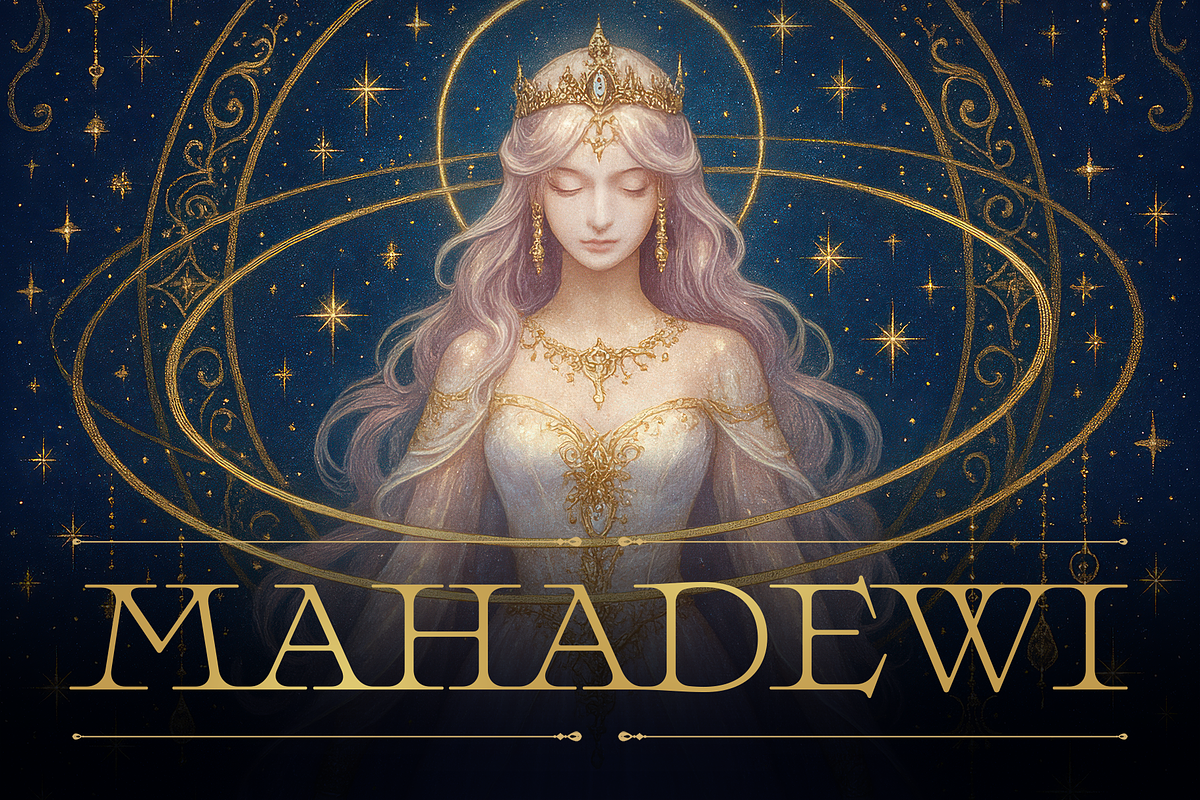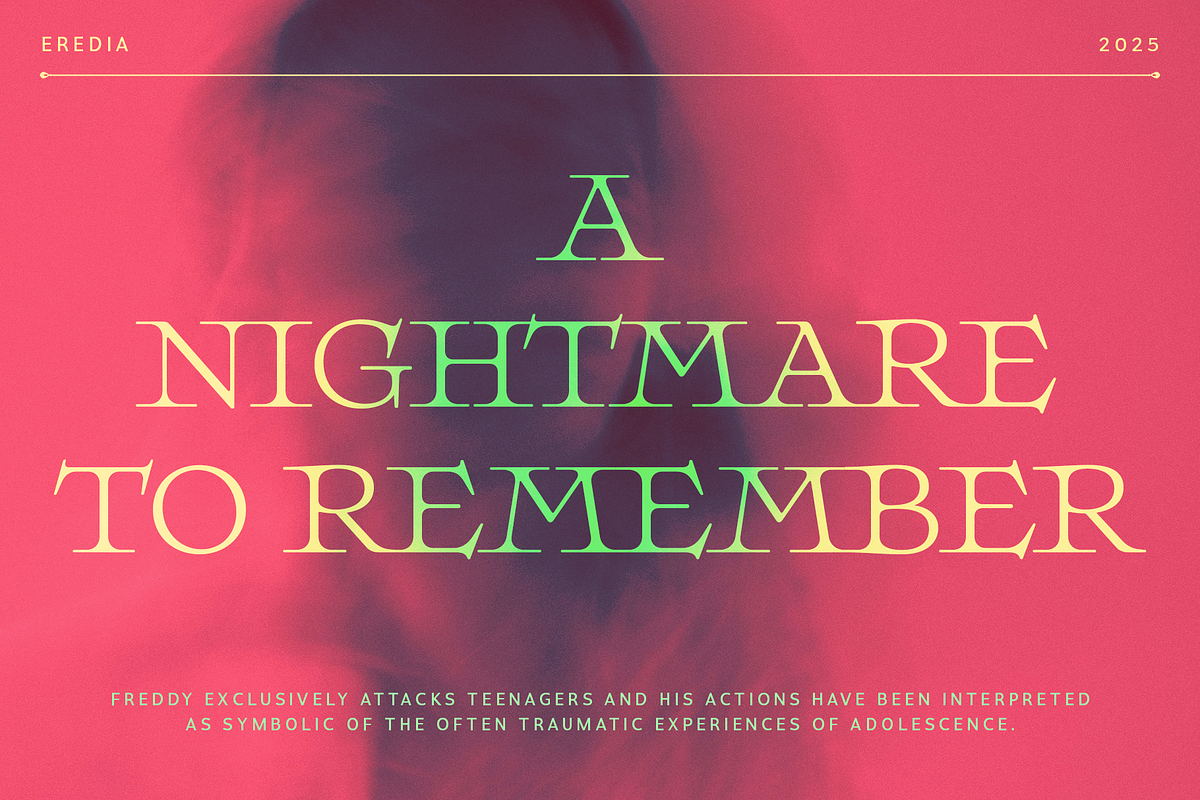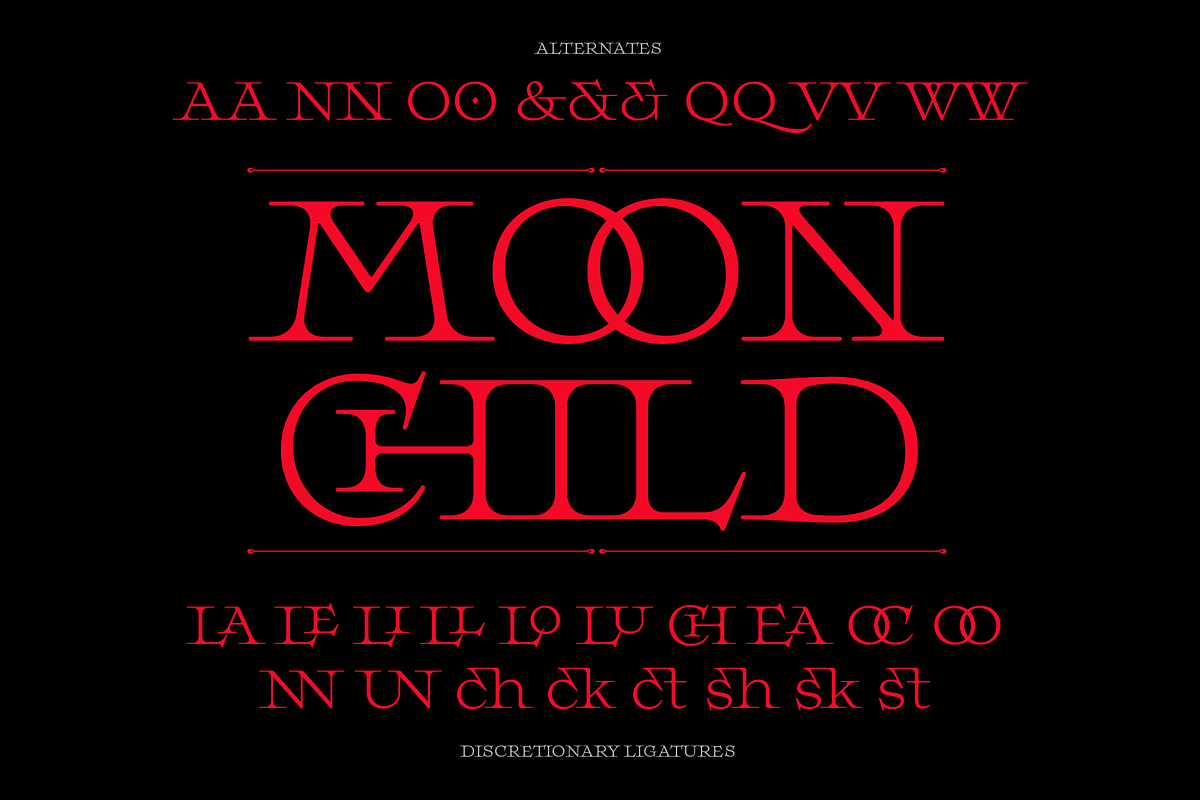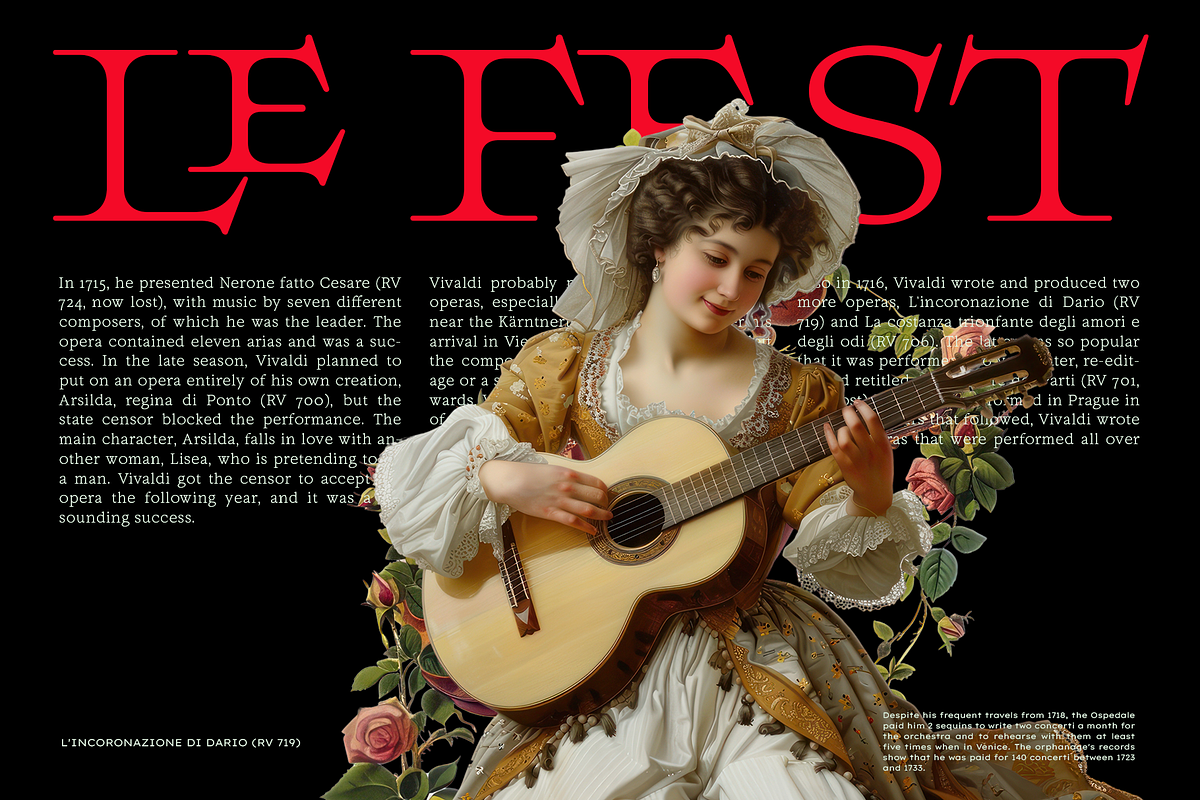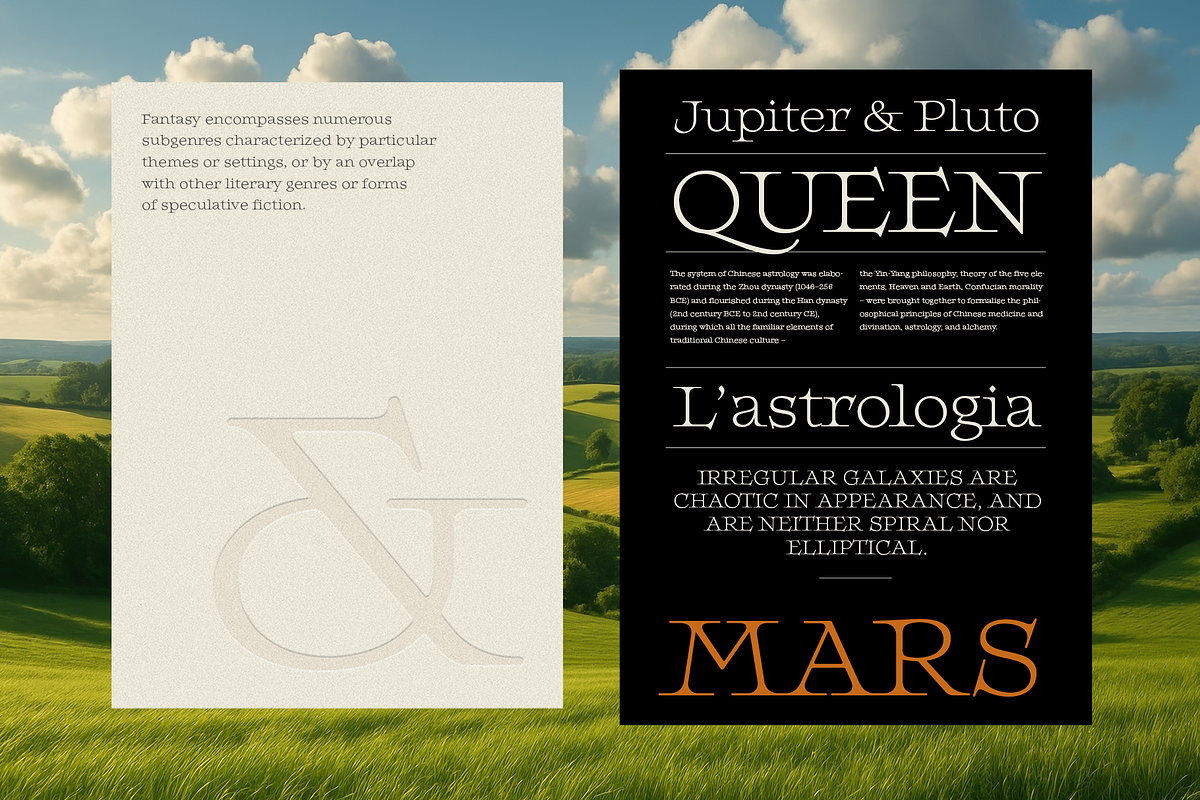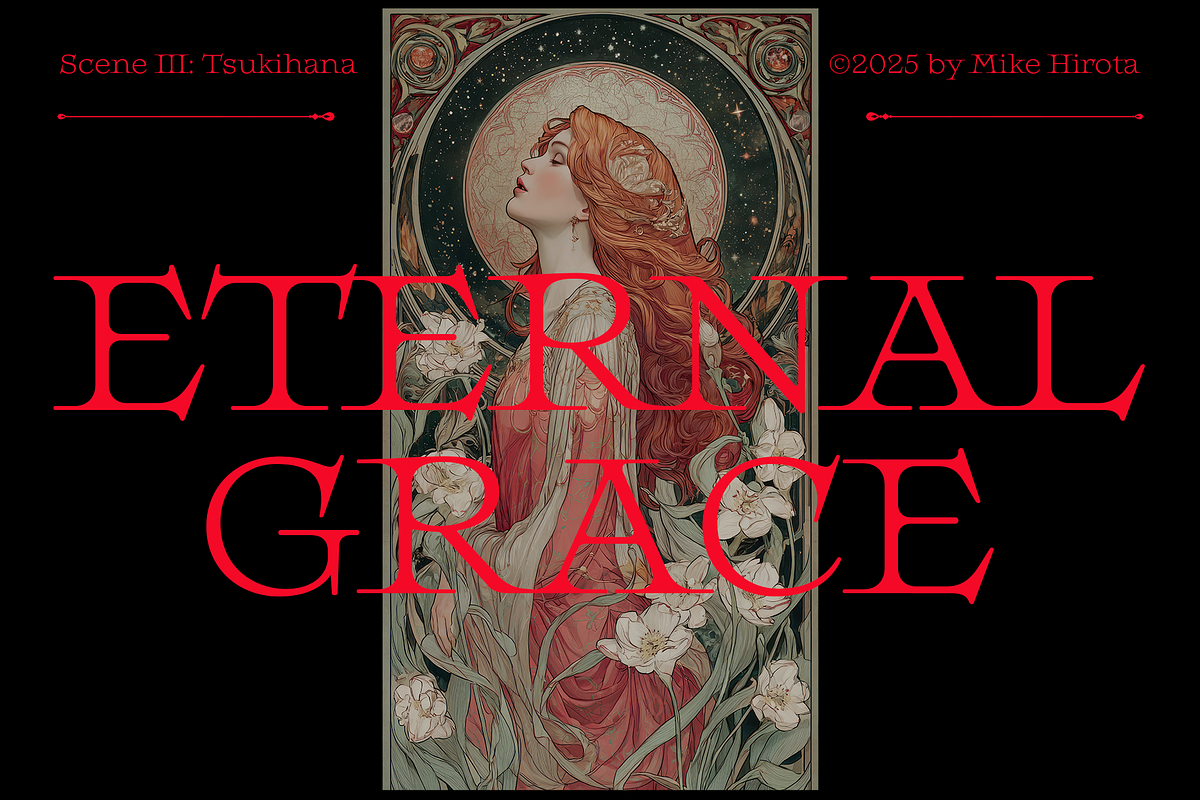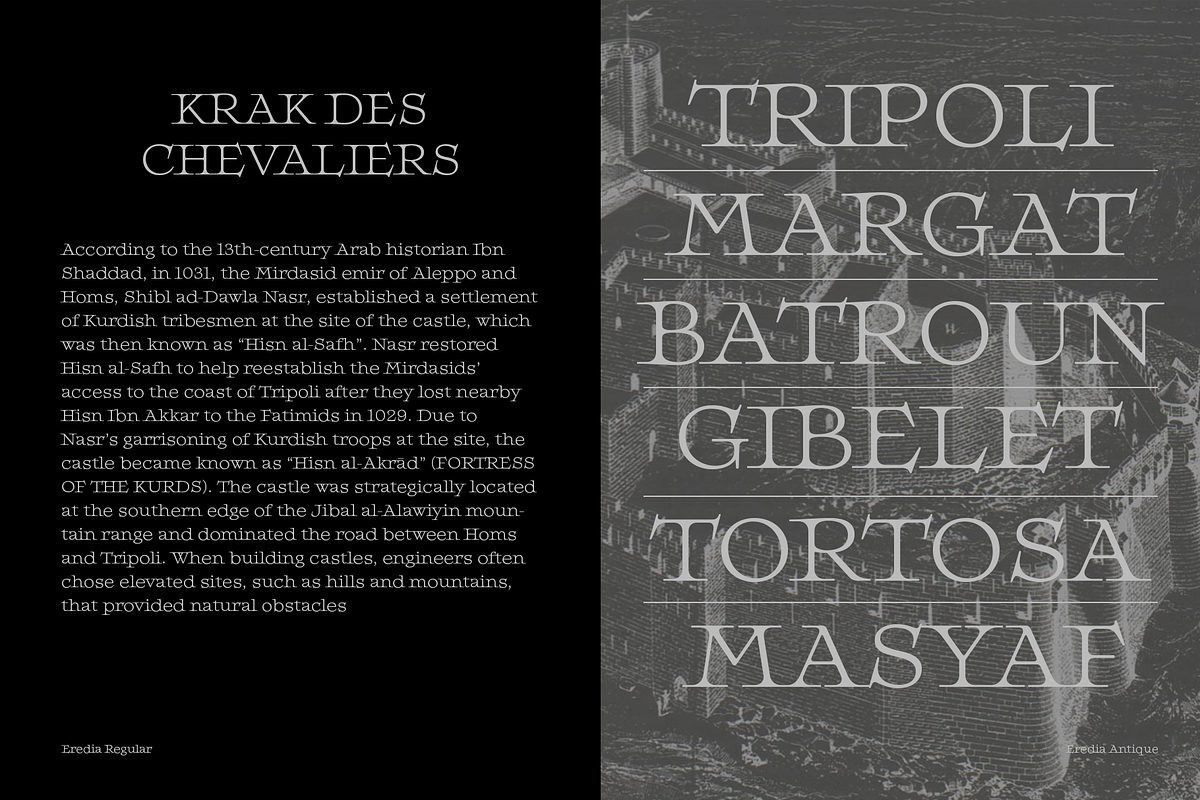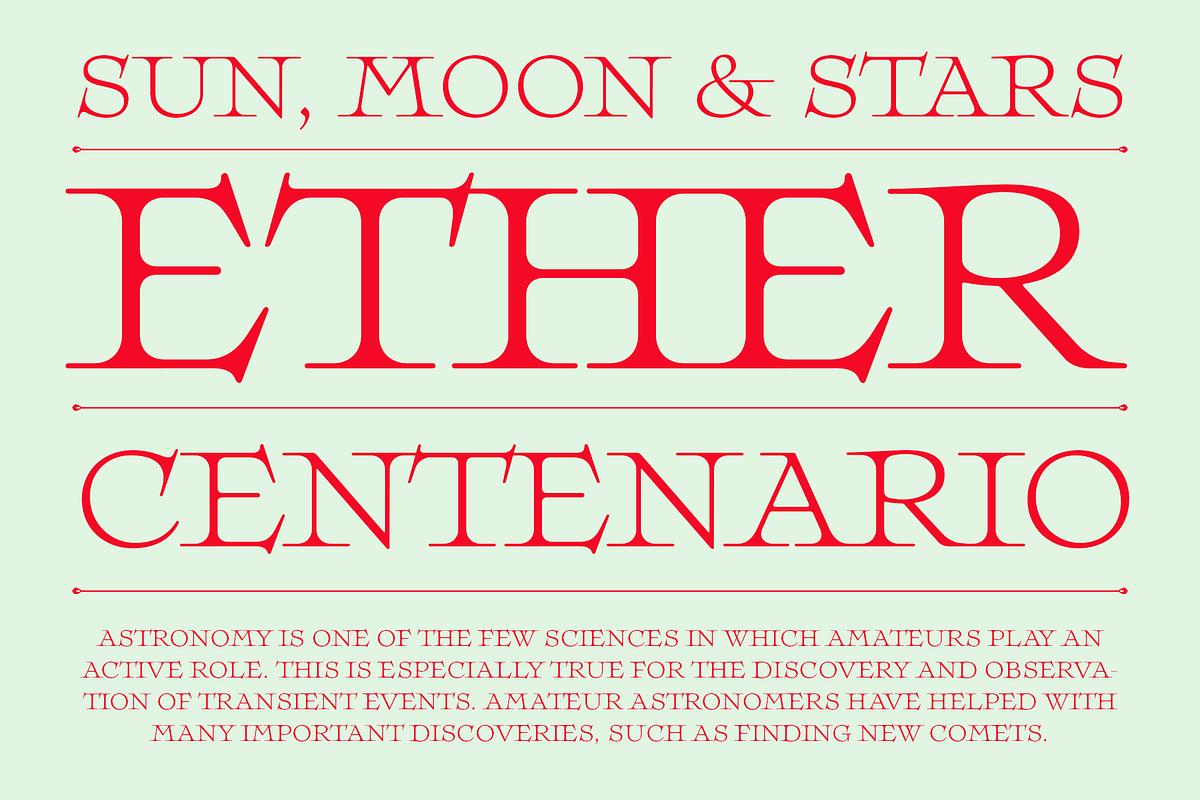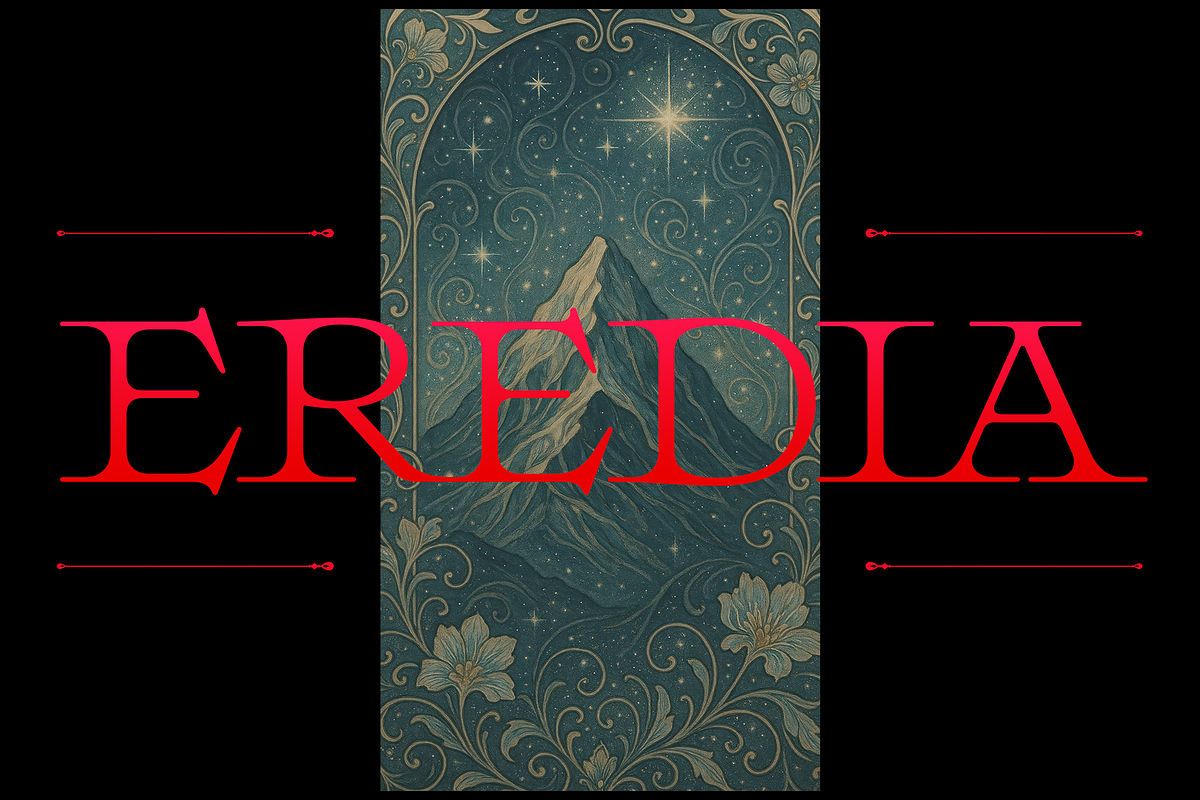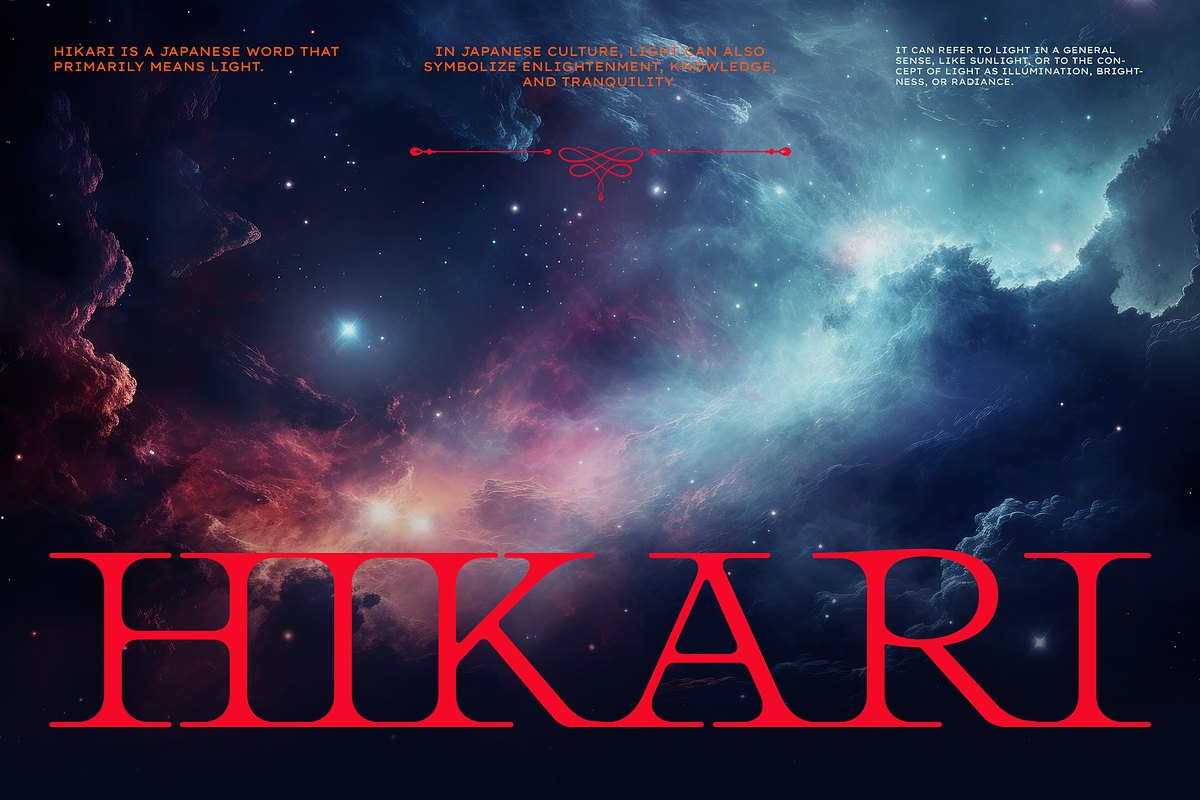
EREDIA
Whimsical and ethereal.
The inspiration of Eredia came from mind when seeing one of Japan guitar instrumental video clip on Youtube. The video clip paints fantasy, feminine and ethereal touch in mind. "What if we made a typeface that breathes that touch? Whimsical, ethereal, feminine and still have fantasy touch on it." And then, Eredia was born. As from the original inspiration, Eredia is especially perfects for creative people who needs visual branding for their songs in dark fantasy form.
It comes with 2 styles, Regular and Antique. The Antique is a bit bolder and has more old-style touch than the Regular.